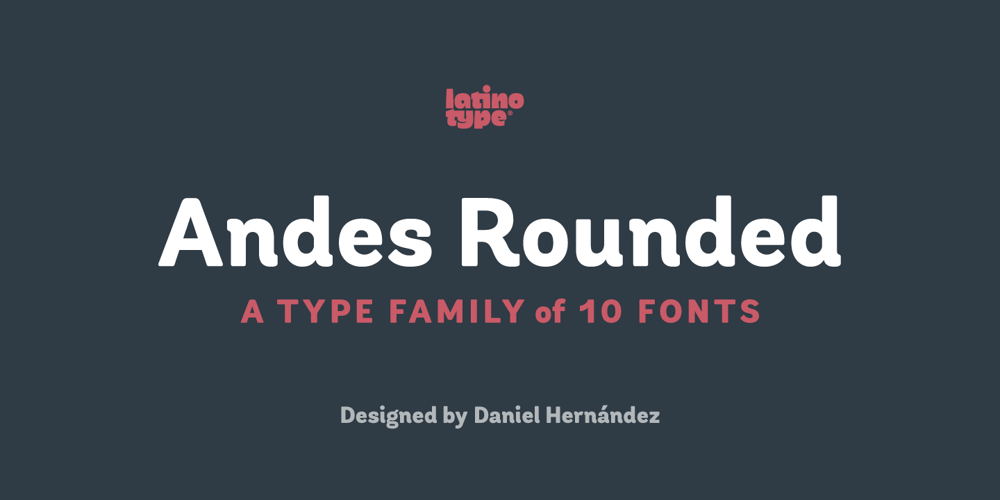
Andes Rounded
Andes Rounded font
Andes Rounded Font Family was designed by Daniel Hernández and published by Latinotype. Andes Rounded contains 10 styles and family package options. Andes Rounded, designed by Daniel Hernández, is a display typeface that has neo-humanist characteristics. Its different terminals, among other elements, give it a look of mixed typography. Andes is a typeface with 10 Upright weights, 10 Italics & Condensed versions, ranging from Ultra Light to Black, each of the same x-height. This typeface contains additional italic glyphs (a, y, z, g) that help to emphasise text or words. Andes is based on the design of Merced and both of them share several features. This type is well-suited for use in retail, magazines, logotypes, books, etc.